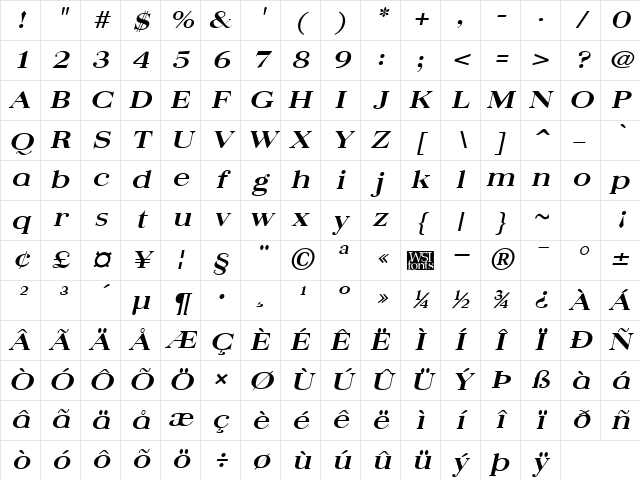
QuantasBroad Bold Italic
QuantasBroad Family
QuantasBroad Bold Italic
Design Context for QuantasBroad
QuantasBroad is a composed and adaptable typeface that performs quietly and consistently across a wide range of design contexts. The slanted form adds forward momentum and visual energy. Its bold stroke weight gives it real presence on the page.